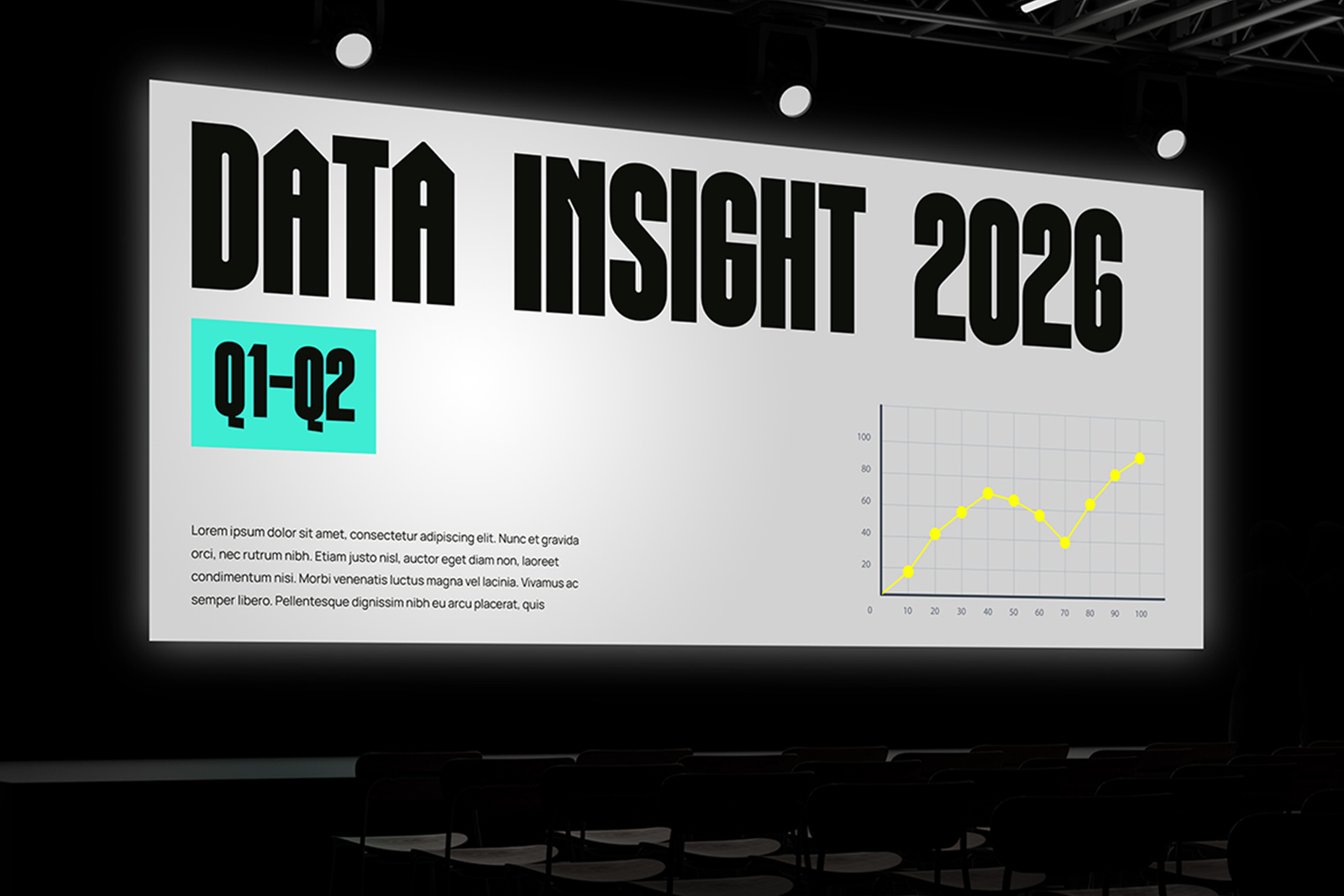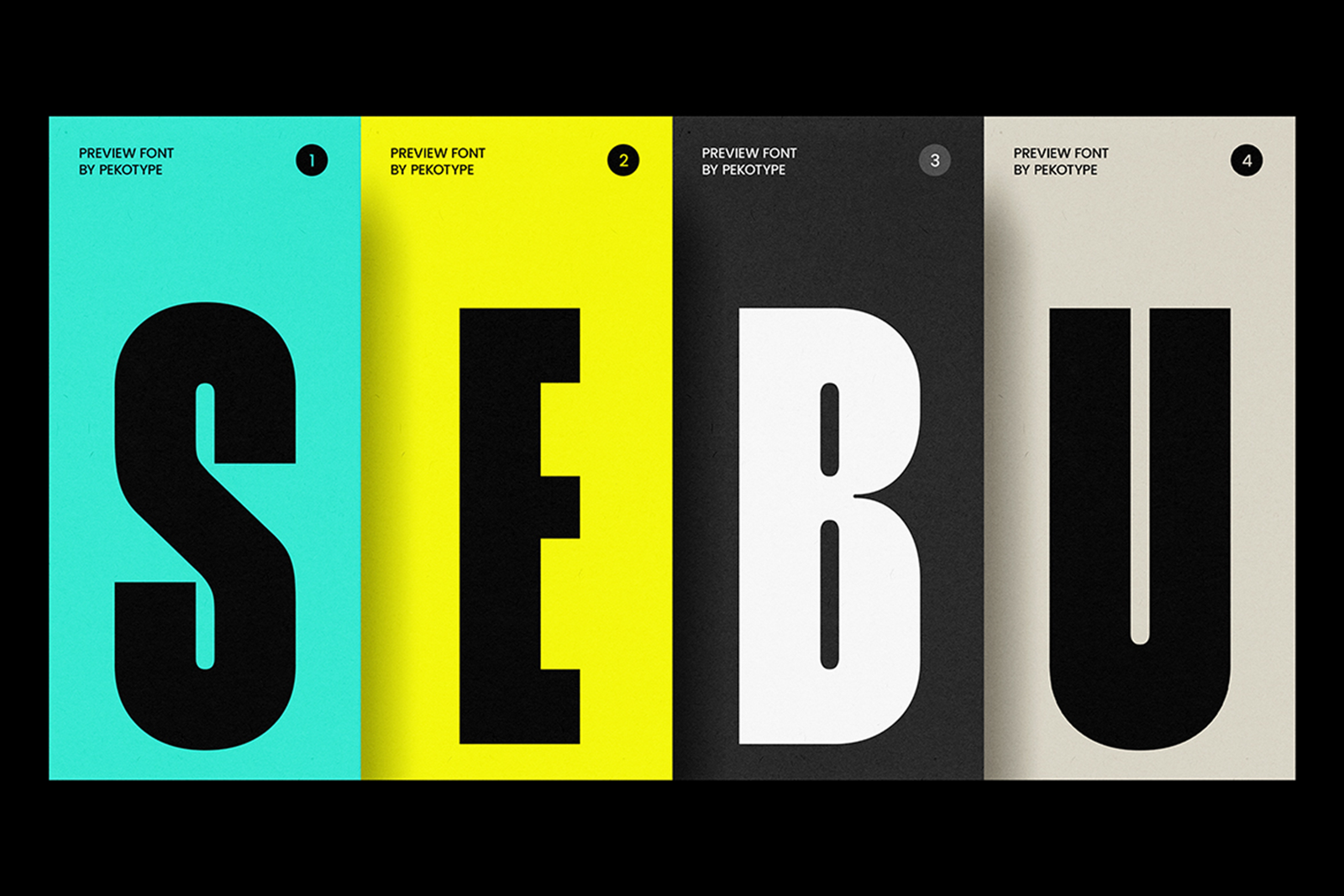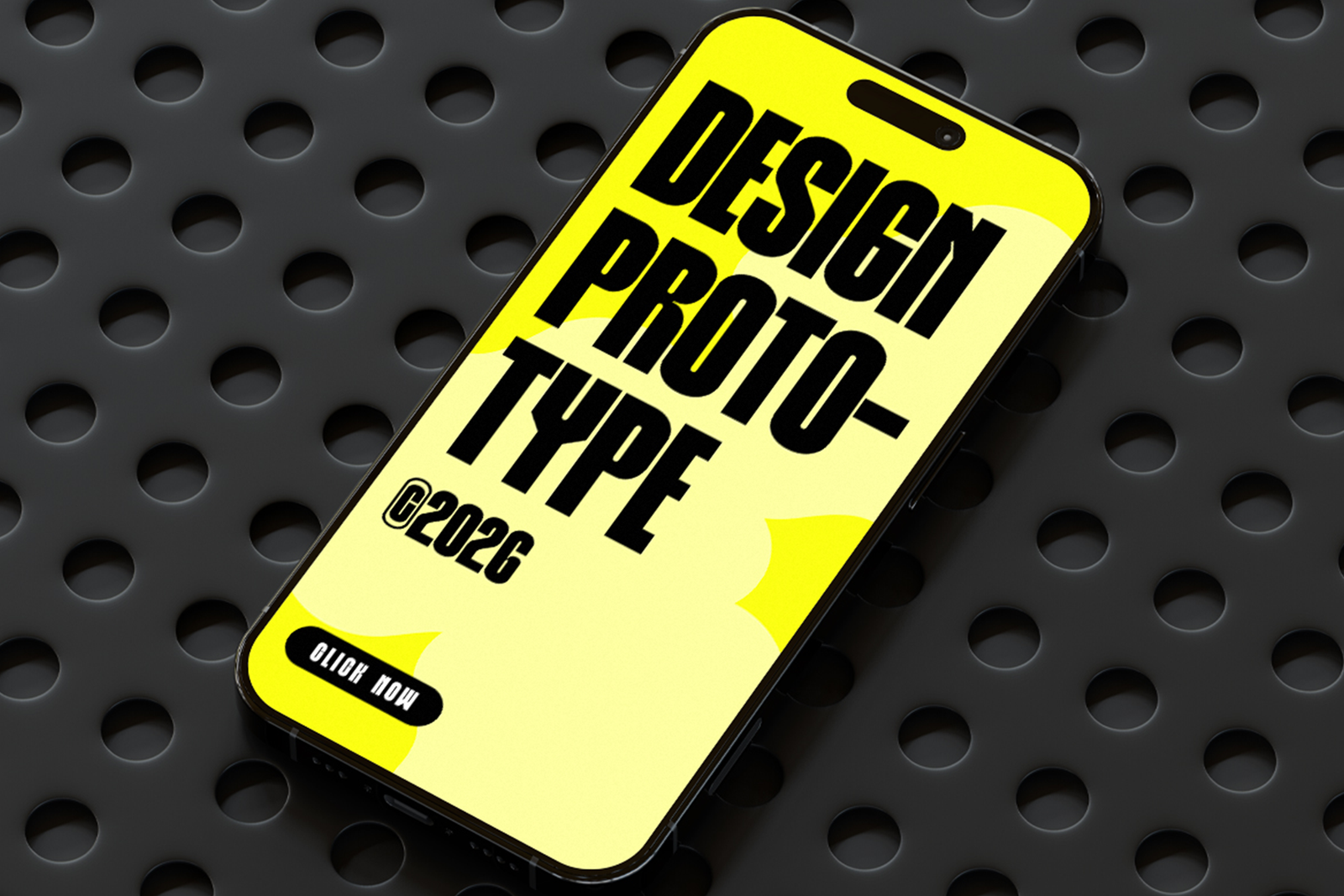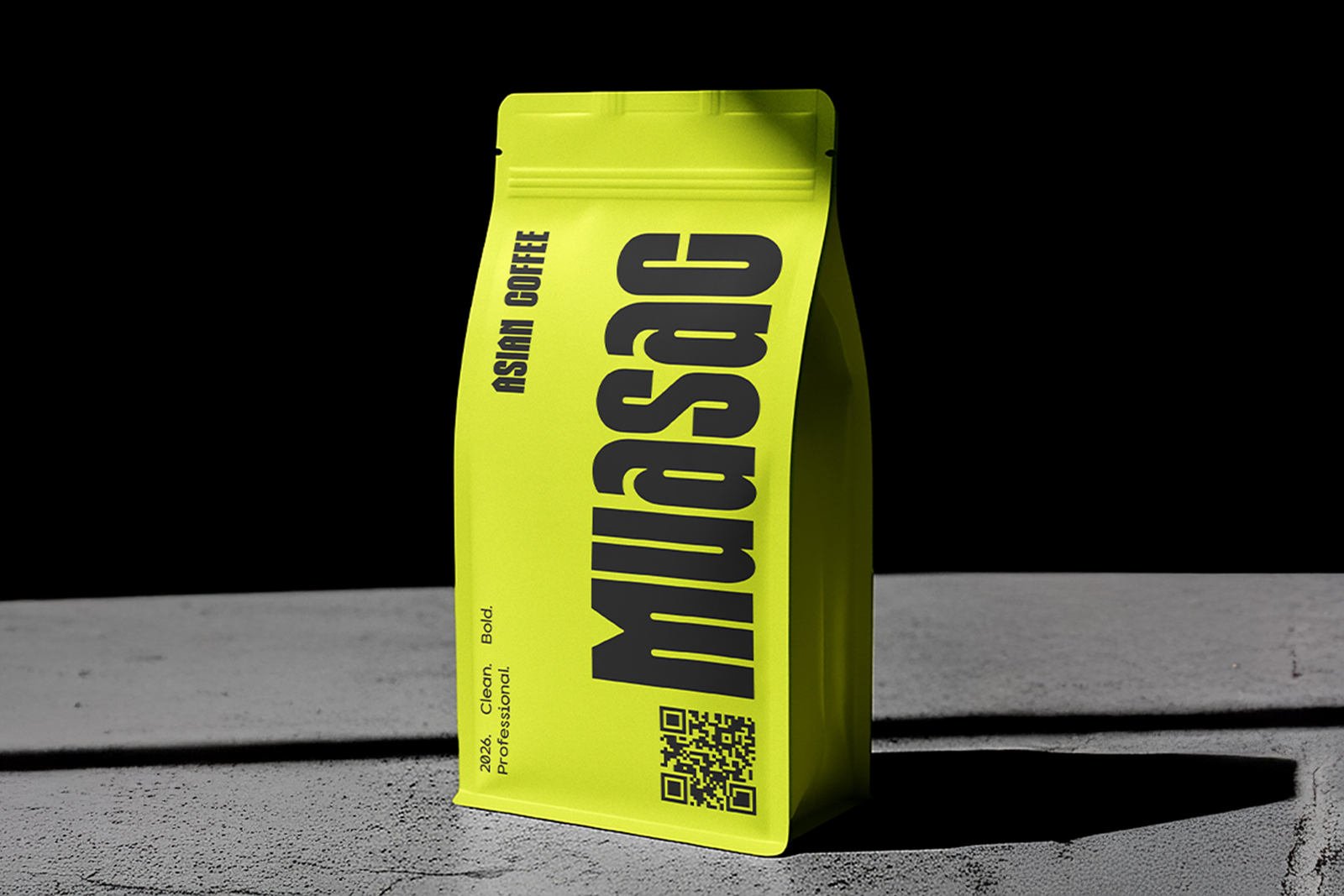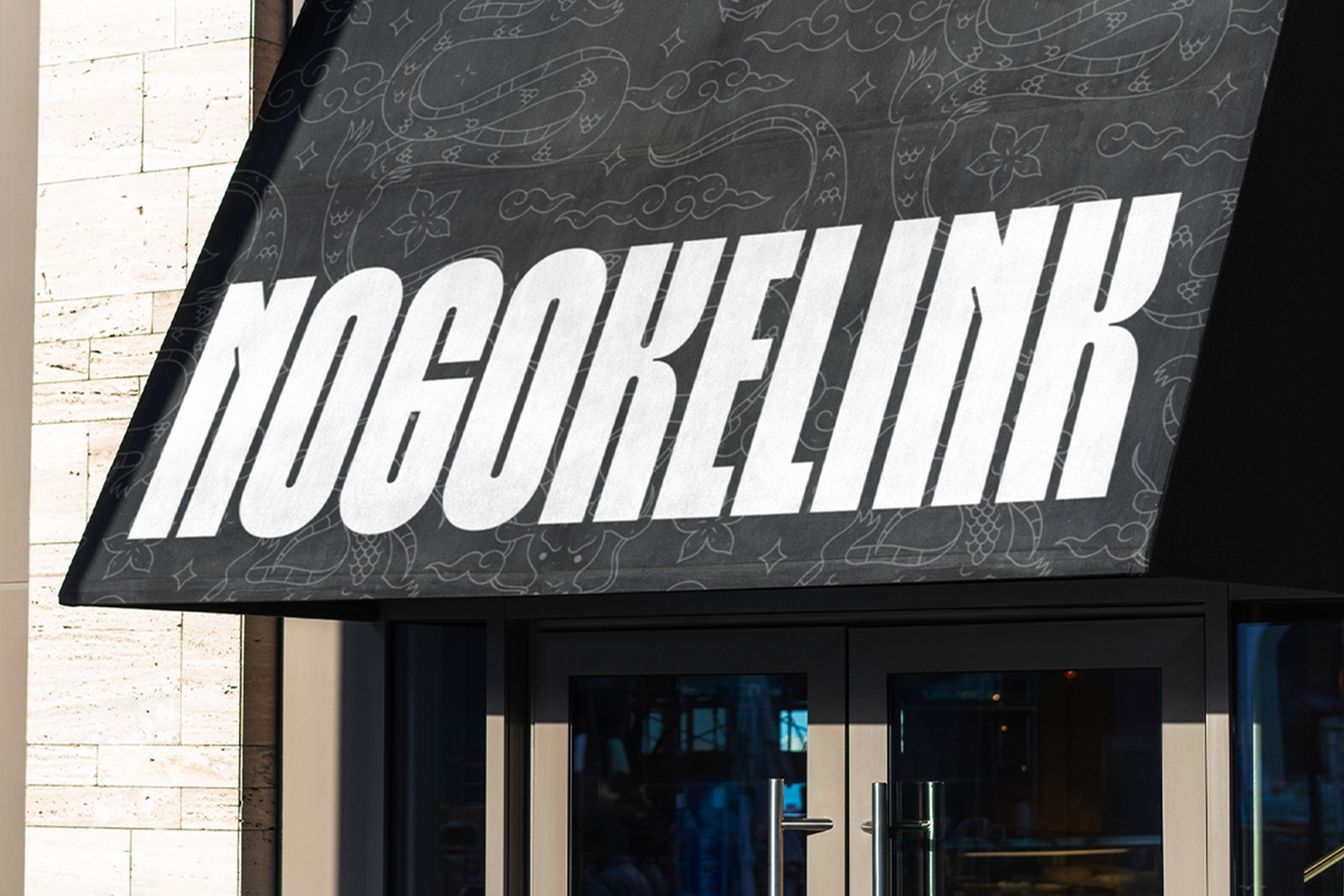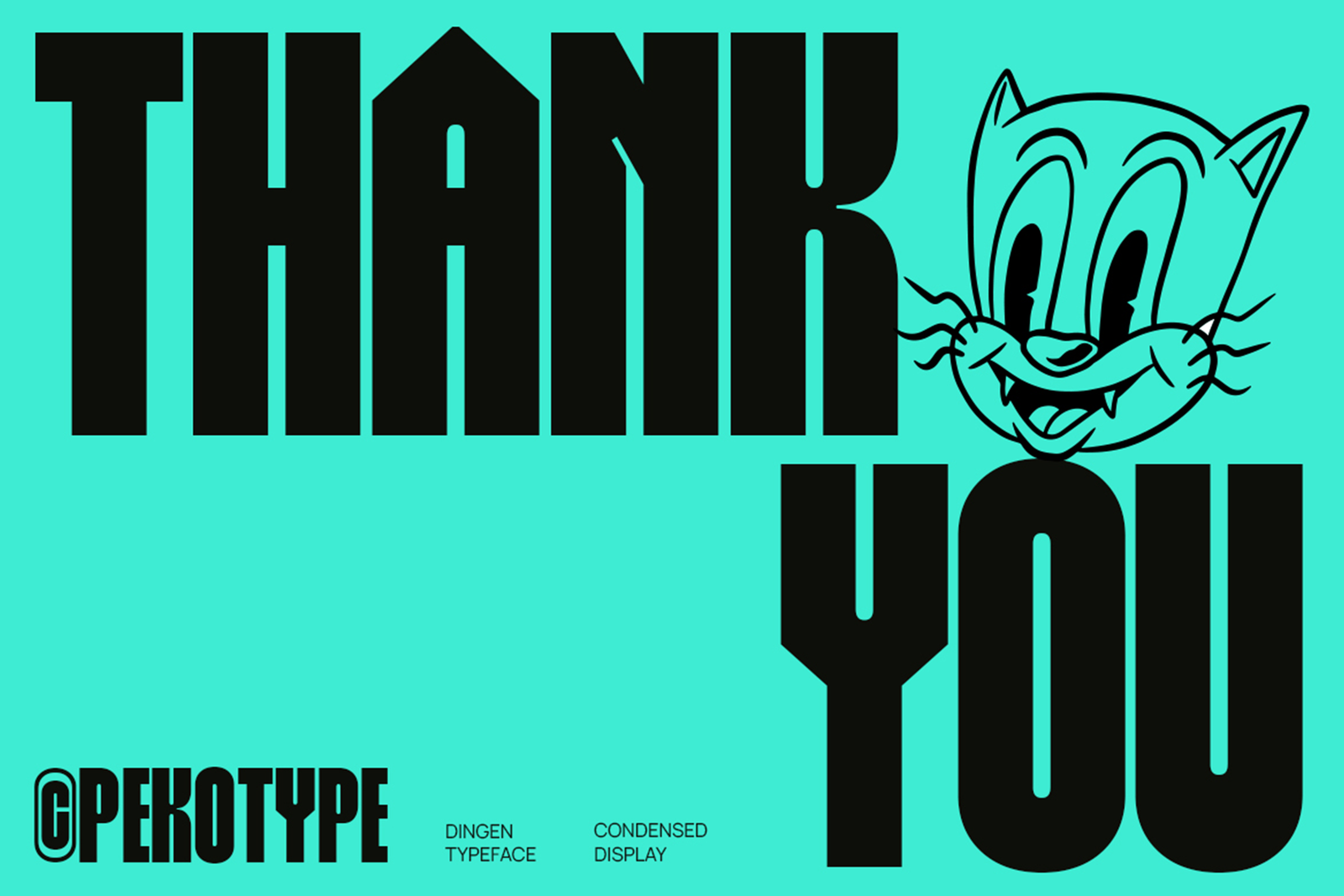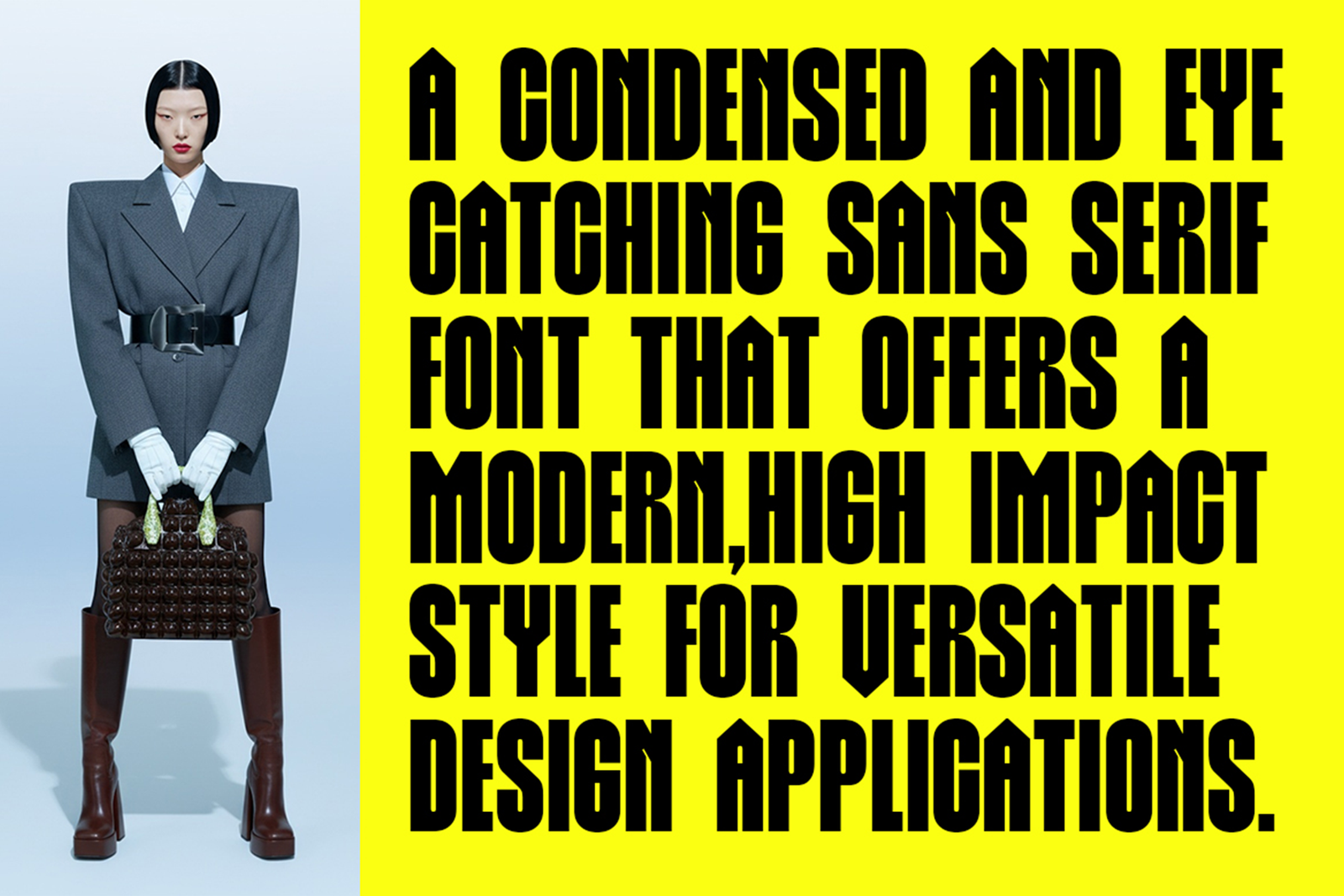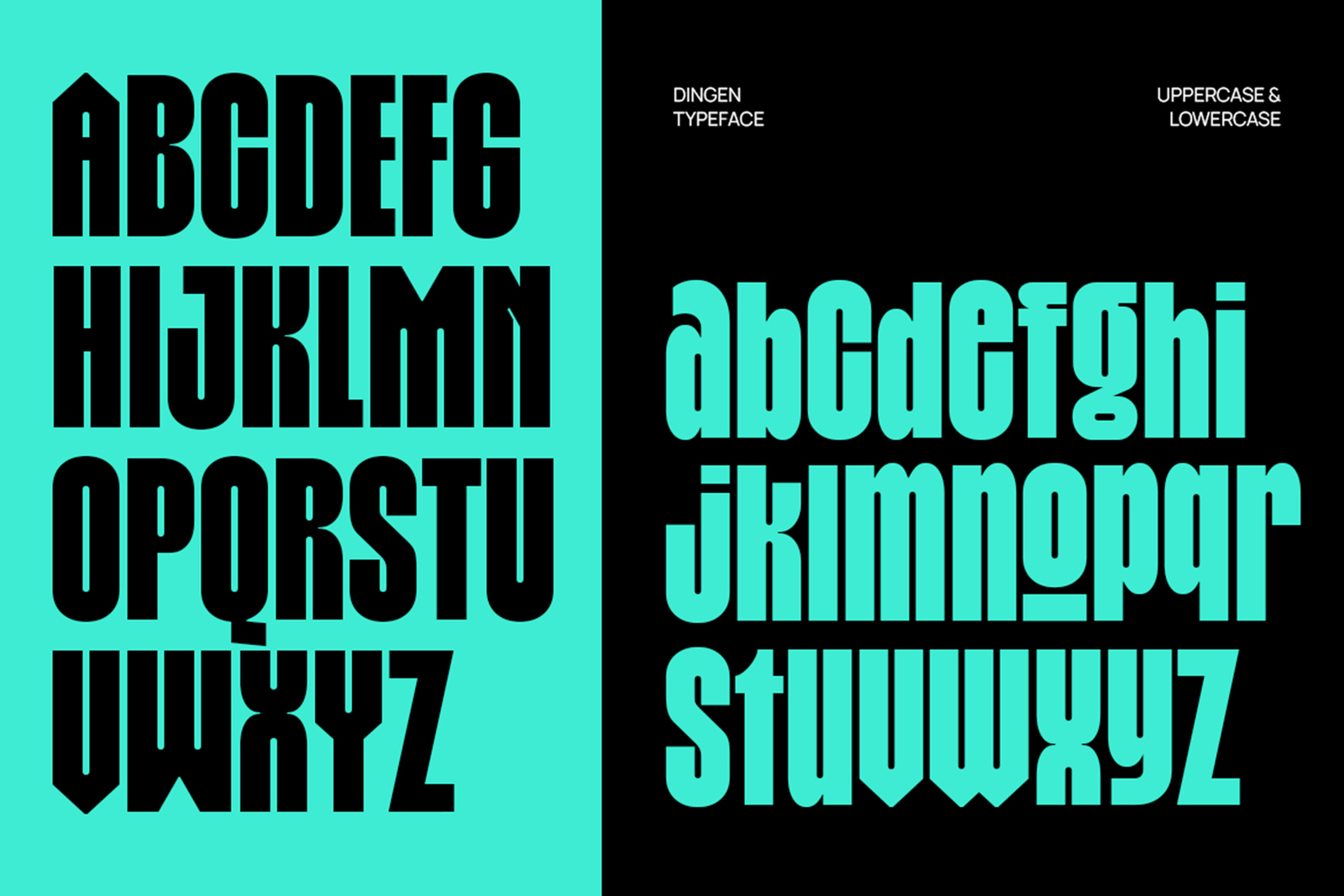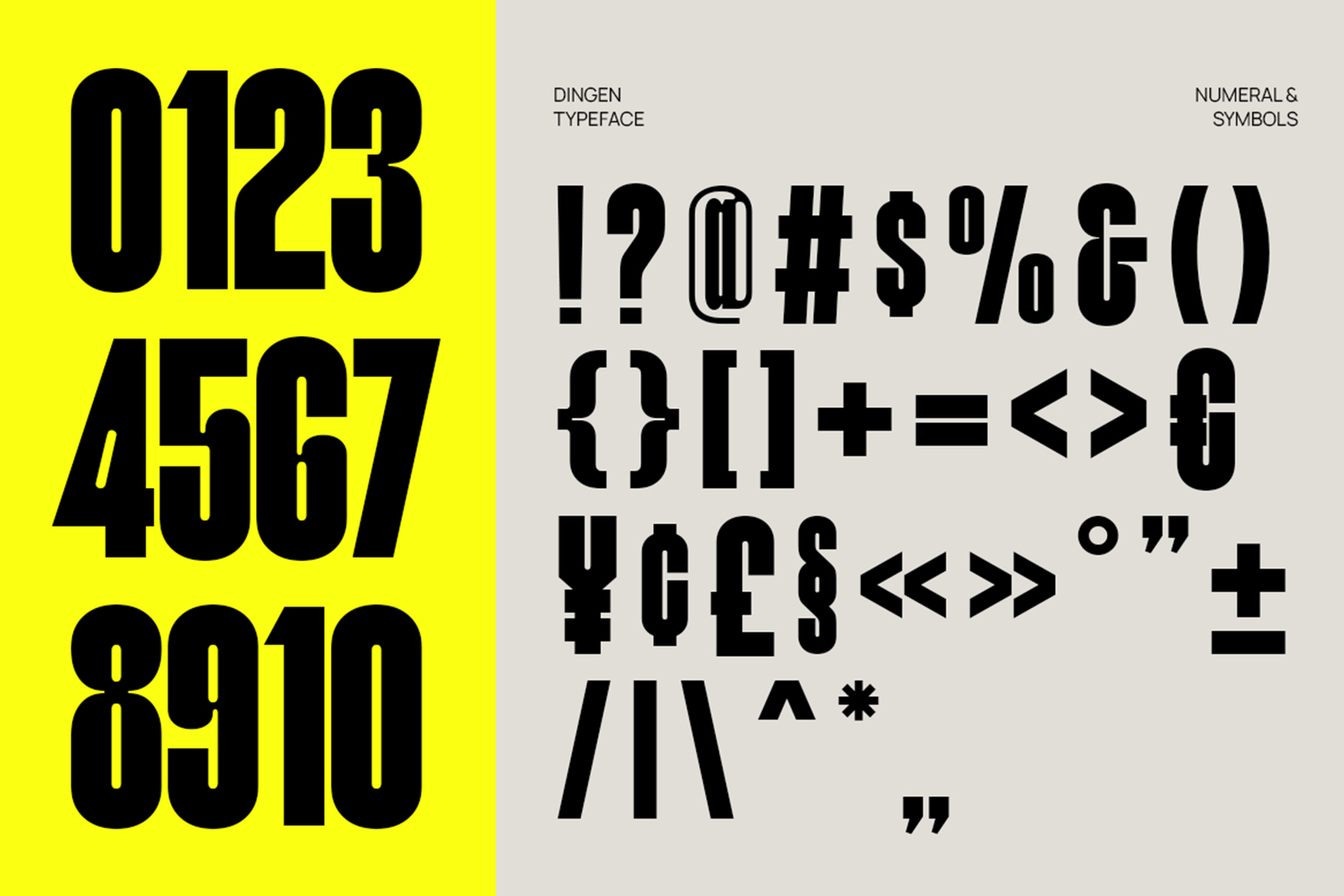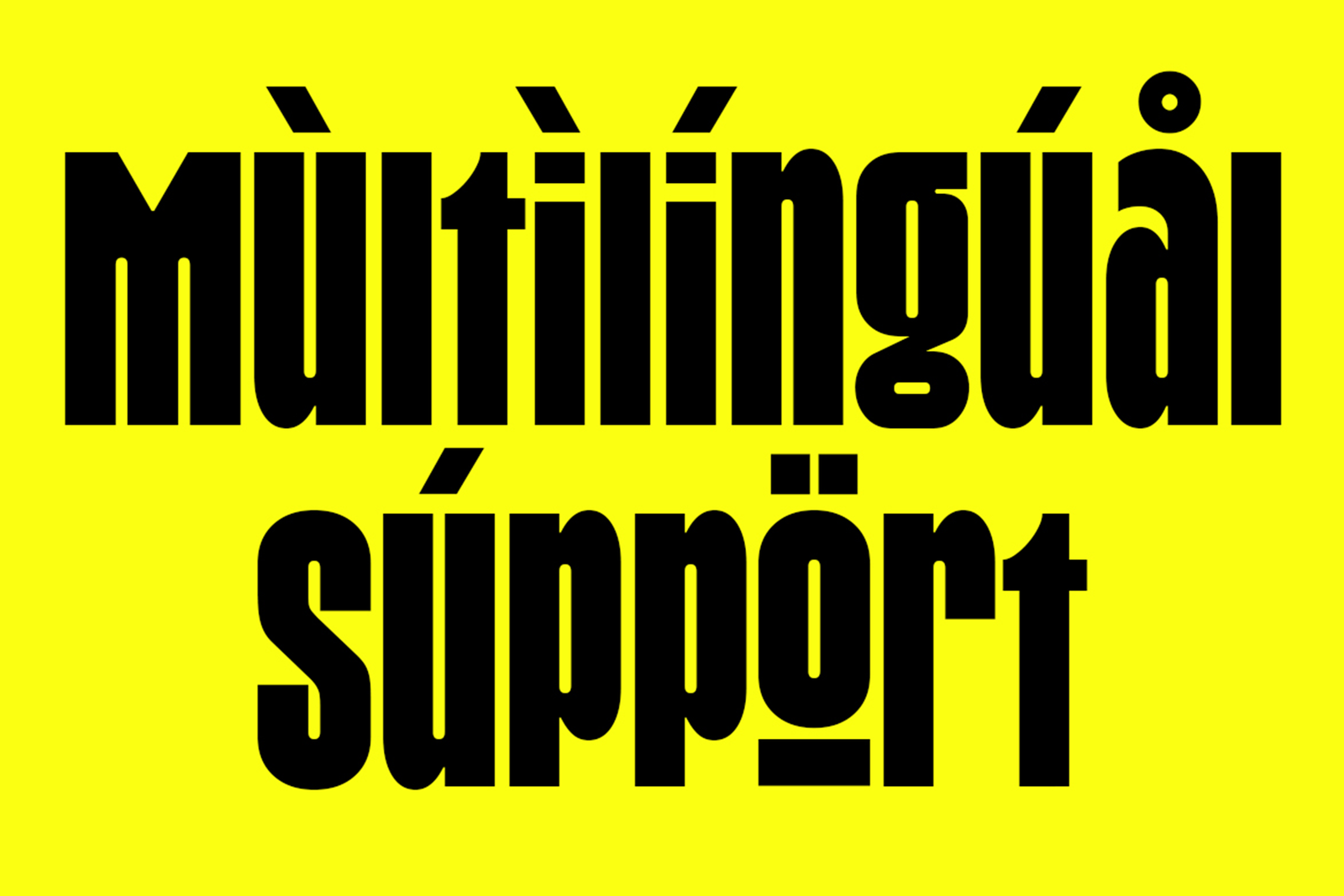
DINGEN Font is a bold condensed sans serif typeface featuring strong, modern letterforms. Perfect for branding, posters, logos, packaging, and designs that need a powerful and eye-catching style.
DINGEN Font is a bold condensed sans serif typeface designed to create a strong and modern visual impact. With its tall proportions, compact letterforms, and clean structure, DINGEN delivers a confident and energetic style that helps your design stand out.
The condensed shape allows you to create powerful headlines while saving space in your layouts. Its bold appearance makes it perfect for projects that need strong typography, including logos, branding, posters, packaging, signage, social media graphics, advertisements, and editorial designs.
DINGEN Font works especially well for modern brands, creative campaigns, sports graphics, technology projects, fashion designs, and urban-inspired visuals. The sharp structure and contemporary style give your artwork a professional and eye-catching appearance.
This versatile display font includes uppercase and lowercase letters, numbers, symbols, punctuation, and multilingual support. Whether used for large headlines, product labels, promotional materials, or digital content, DINGEN helps create a memorable and powerful identity.
This is the perfect choice for designers who need a bold, clean, and impactful typeface for branding, advertising, and creative projects.